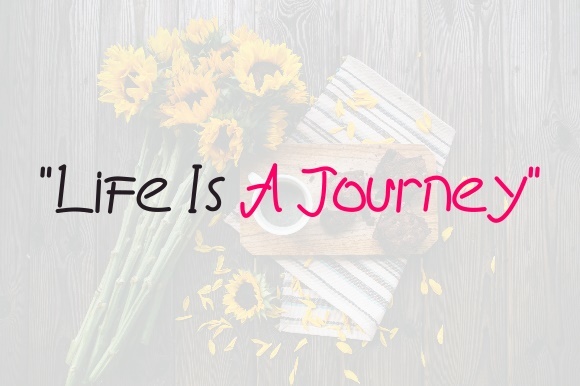
Beloved Journey Font
About Beloved Journey Font
The Beloved Journey is beautiful a handwriting font. It’s great for branding, posters, quotes, and much more!